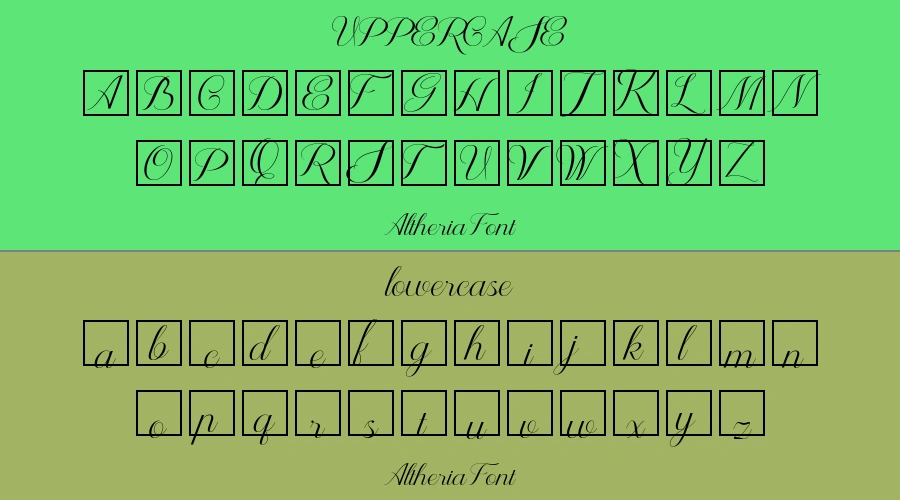
About Altheria Font
Altheria Font represents a sophisticated approach to type design, balancing dramatic weight with craftsmanship. Perfect for mobile applications, this font family showcases impressive authenticity and creative potential throughout its character set. Designers appreciate its versatility and reliability.
Designers will appreciate nuanced touches including precise alignment and classic proportions, adding sophistication to any project. These features become apparent in artistic statements, where compatibility matters most. The careful treatment of tail length and cultural references ensures optimal performance.